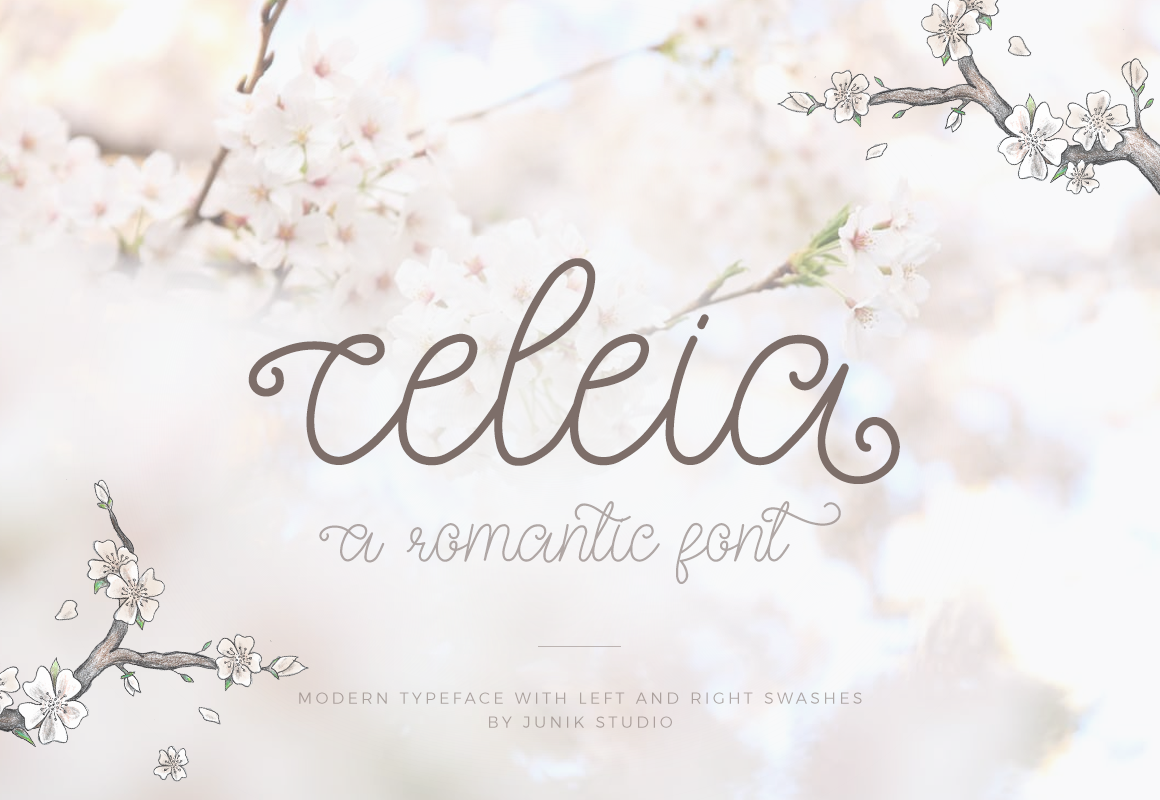
Celeia - Romantic font
Celeia is a modern romantic typeface that includes:
- Lowecase and uppercase letters
- Latin extended characters, basic currencies, punctations, and numbers
- Left and right swashes
- Stylictic alternates and ligatures
- PUA encoded extra characters